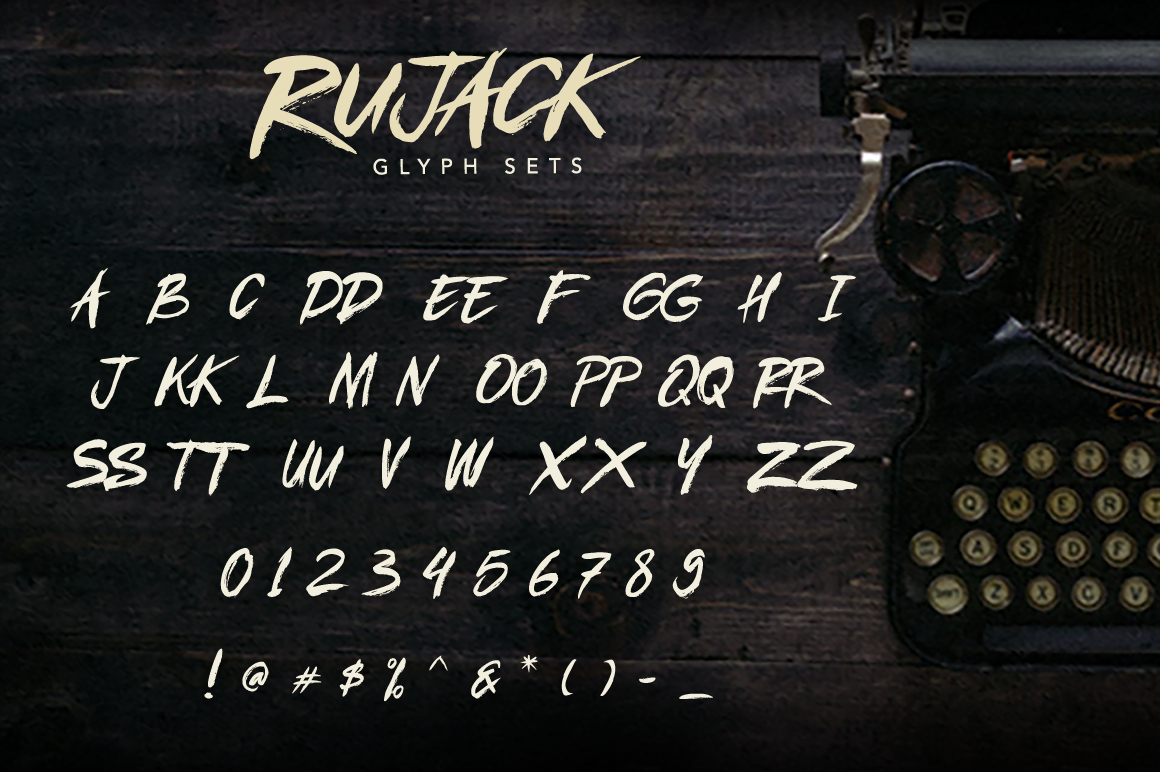
Free Rujack Handbrush Display Font
Free Rujack Handbrush Display Font is a natural brush font. It is suitable for poster designs, t-shirts, product brands, etc. This free font only has uppercase characters, numbers and basic punctuation. It comes with two format file which are OTF and TTF as well. However, this demo font is coming with personal use, but if you want to get more features font and commercial use, go purchase the premium version.